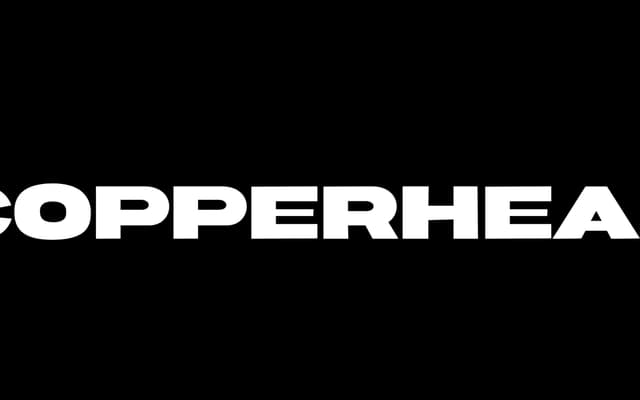
Copperhead
A thick, raw display typeface with varied stroke weight and deliberate imperfections aimed at loud, expressive design work.
Built with intentional roughness, Copperhead uses varied line weight and surface irregularity to give it a handmade, assertive character. It is pitched squarely at bold, distinctive display applications where polish would undercut the effect. Offered as a single style at a low entry price with a commercial licence add-on available.
Thick, loud lettering with varied line weight and intentional imperfections; designed explicitly for display use with a raw, expressive character.